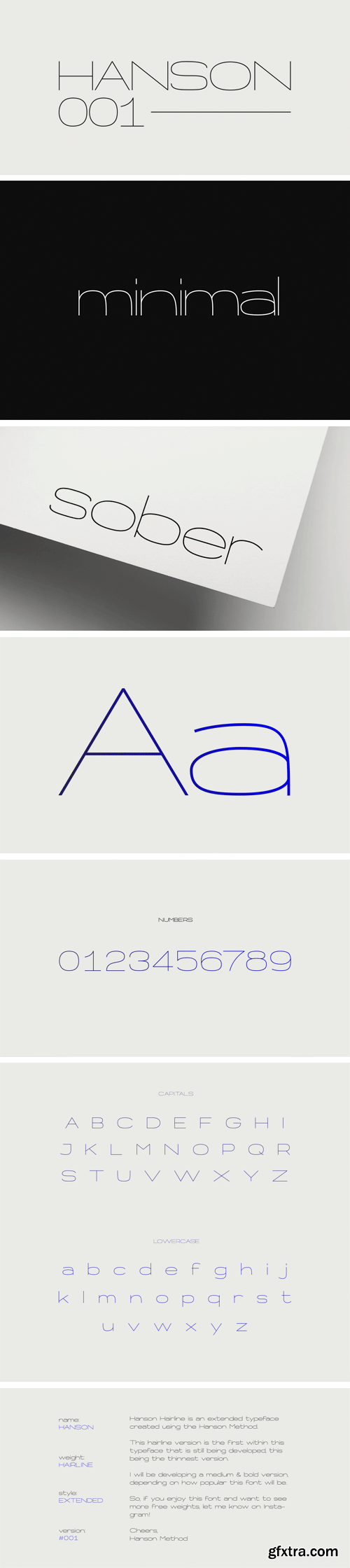
Hanson毛发线字体
Hanson Hairline Font
Hanson Hairline is a elegant modern and minimal extended font currently in one weight. It contains uppercase and lowercase letters, numbers and symbols. This font perfectly suits for branding, magazines, social media and other stylish designs.